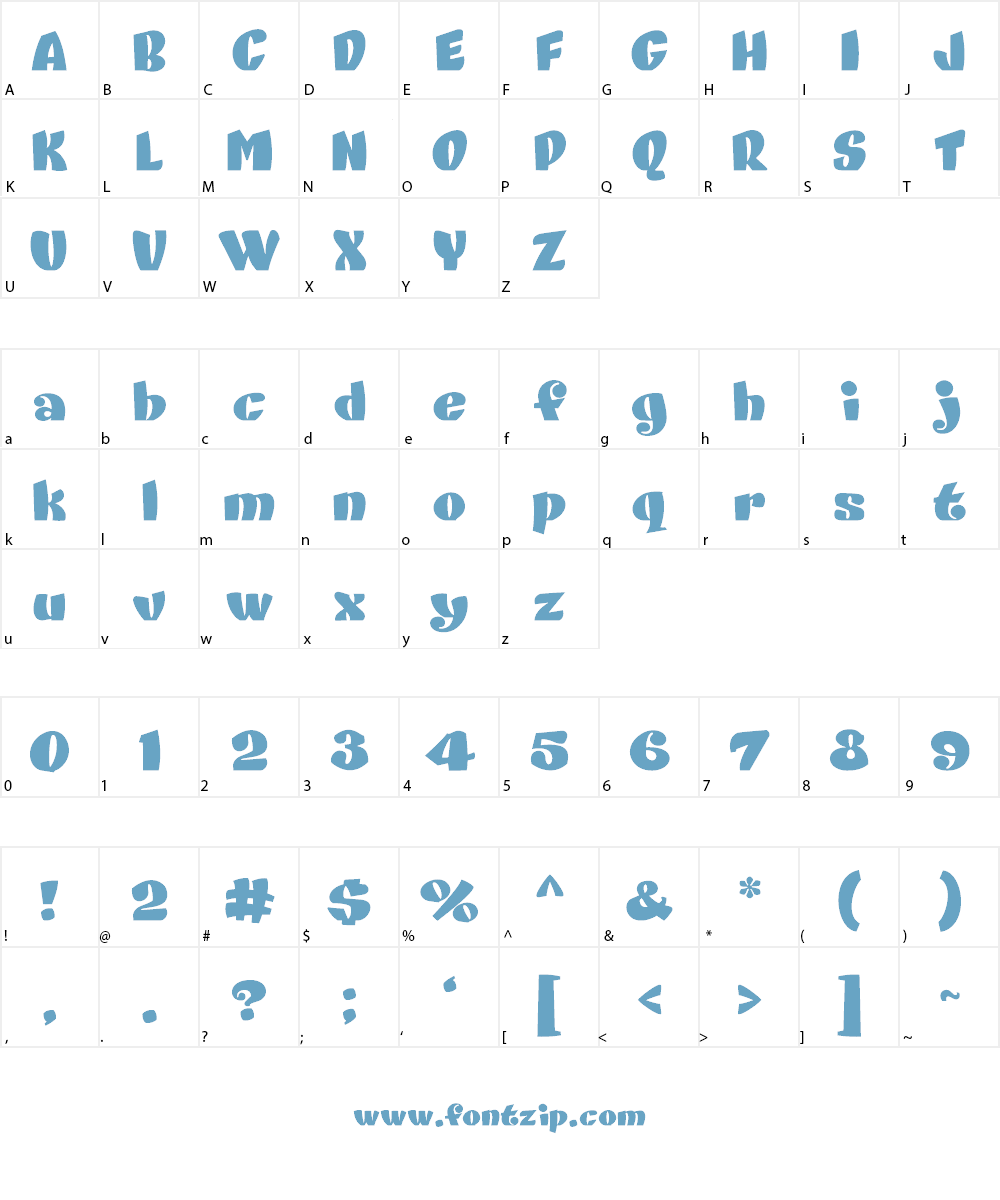
Cherokee Unicode platform typeface. DANISVDANVSGV in Cherokee means barbecue. This font was intended as a signage font for a local Cherokee barbecue place where the beer is cold and the ribs are hot.